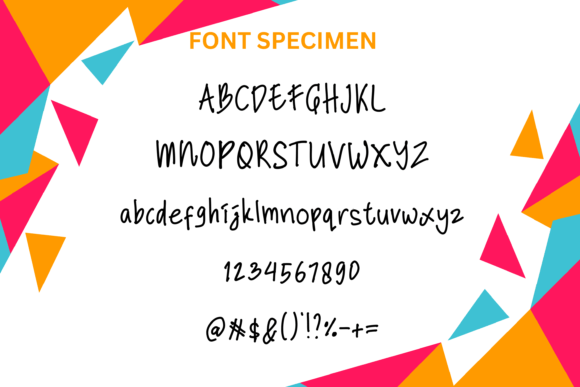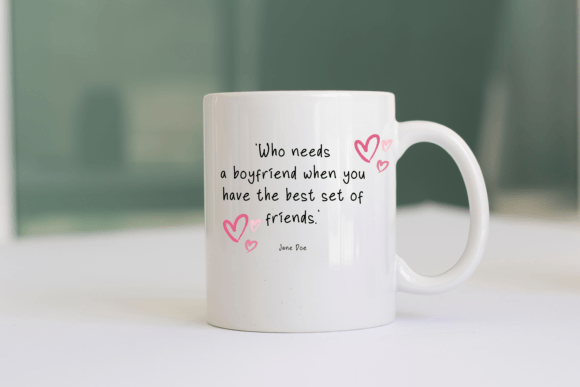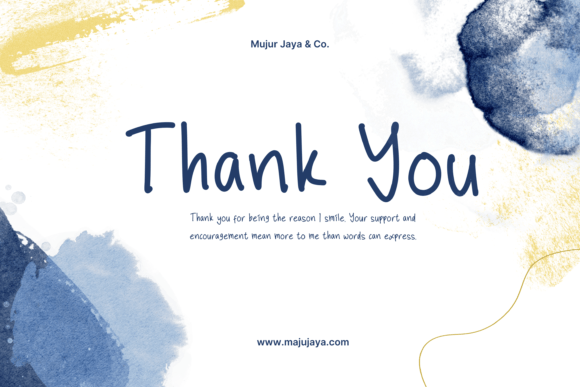
Introduction to Naragama Font
Do you remember the feeling of writing a heartfelt letter to a loved one, the sound of the pen gliding across the page, and the way the words seemed to come alive? That’s the magic of handwritten text, and it’s exactly what the Naragama Font captures.
As a designer, you know that the right font can make all the difference in a project. That’s why we’re excited to introduce the Naragama Font, a high-quality handwriting font that’s perfect for creative projects. With its smooth strokes and elegant flow, this font is a valuable design resource that can add a personal and artistic touch to any work.
Whether you’re working on a wedding invitation, a greeting card, or a logo design, the Naragama Font is a free download that’s sure to impress. Its transparent background makes it easy to use on any background, and its high-quality design ensures that your project will stand out from the crowd.
Key Features of Naragama Font
- High-quality design resource suitable for creative projects, including graphic design, digital art, and web development.
- Features a transparent background, allowing for seamless integration with any design element or background.
- Includes a range of unique characters and glyphs, making it an excellent choice for designers looking to add a touch of personality to their work.
Honest Review: Naragama Font
I recently came across the Naragama Font, and I must say it’s been a game-changer for my creative projects. This font is a fantastic design resource that offers high-quality typography options. One of the standout features is its transparent background, which makes it perfect for overlaying on images or videos.
- ✨ The font’s modern and sleek design makes it ideal for contemporary creative projects.
- ✨ The high-quality resolution ensures that the font looks great on various screen sizes and resolutions.
- ✨ The transparent background allows for seamless integration with other design elements.
Overall, I’m thoroughly impressed with the Naragama Font. Its high-quality design and transparent background make it an excellent choice for my creative projects. While there are some limitations, I believe it’s still a valuable resource for designers looking for a unique and modern font.
The Naragama Font is suitable for a wide range of creative projects, including branding, marketing materials, and digital graphics. Its high-quality design and transparent background make it an ideal choice for designs that require a clean and professional look.